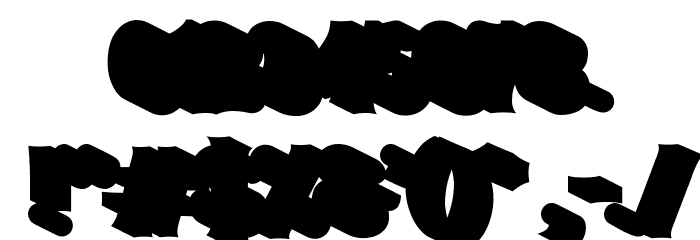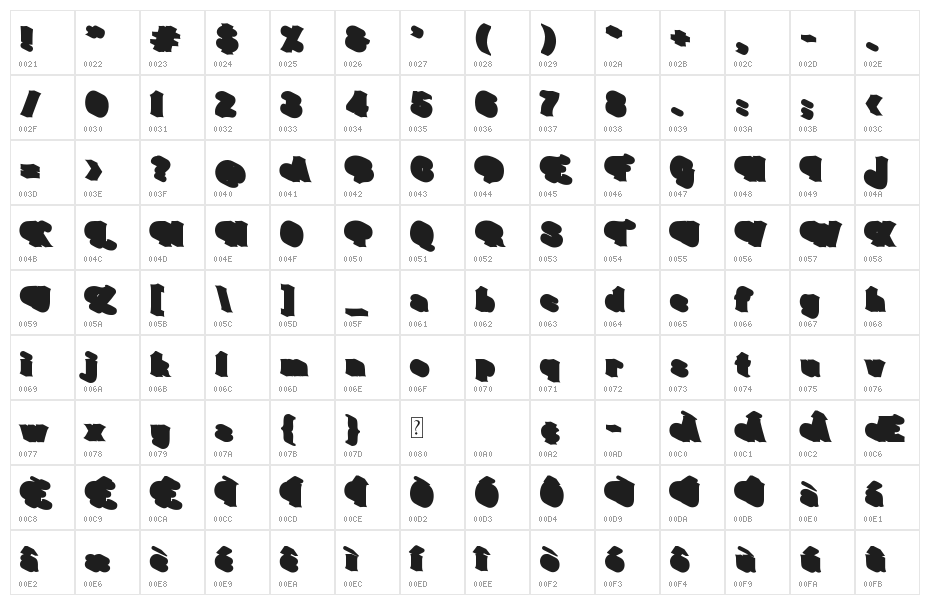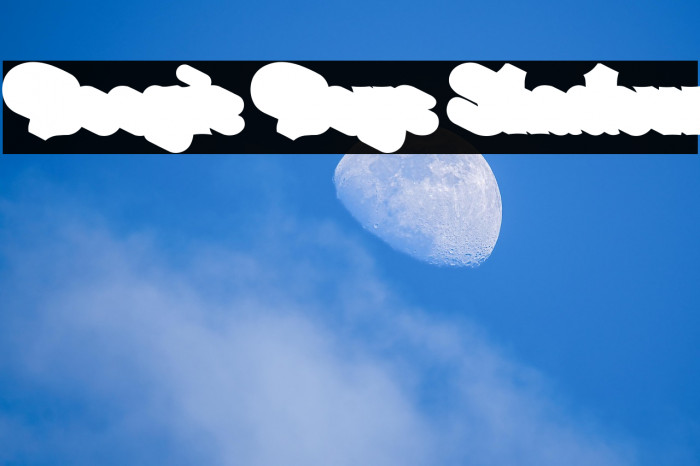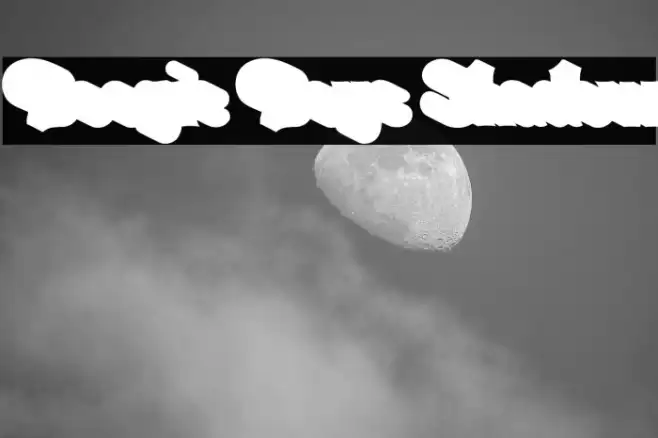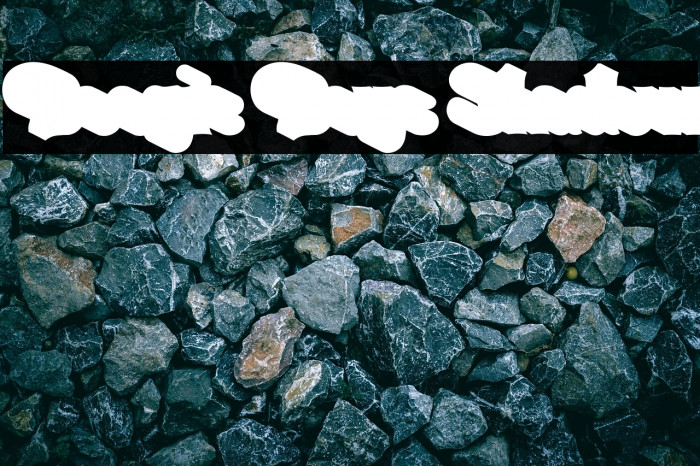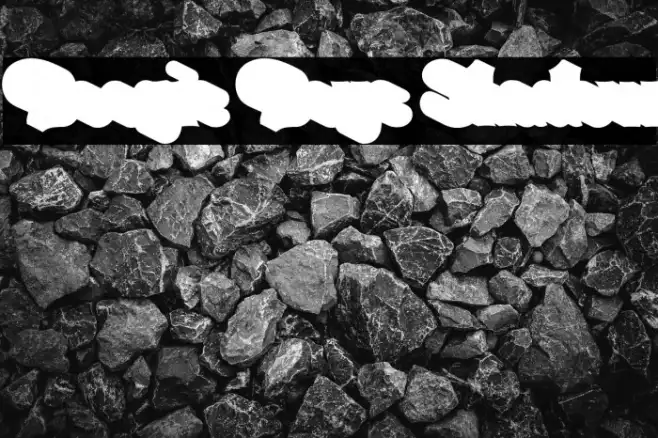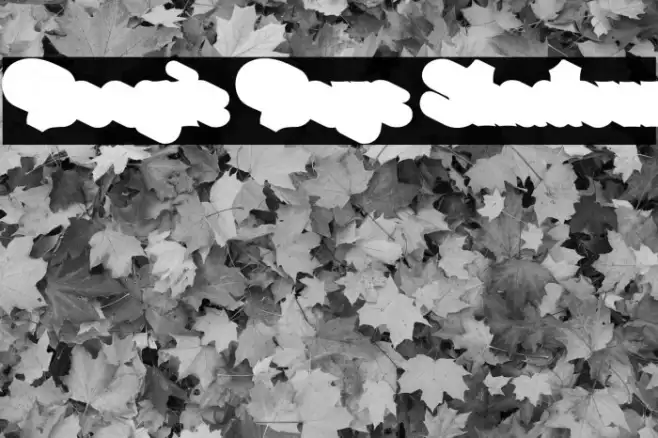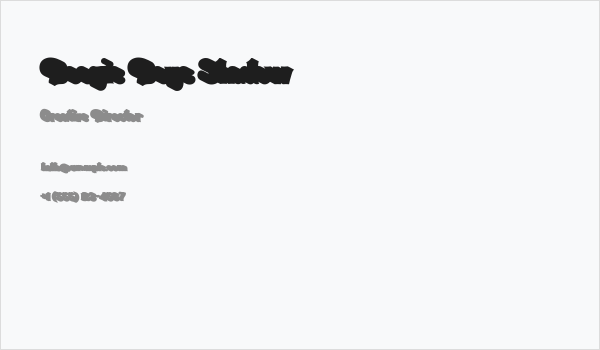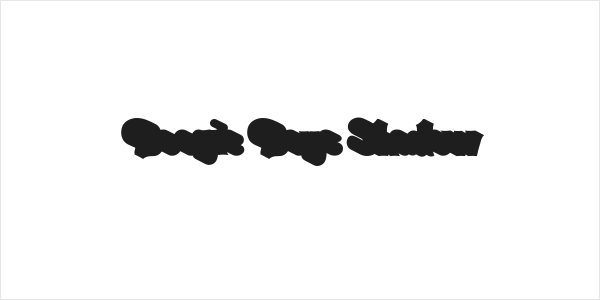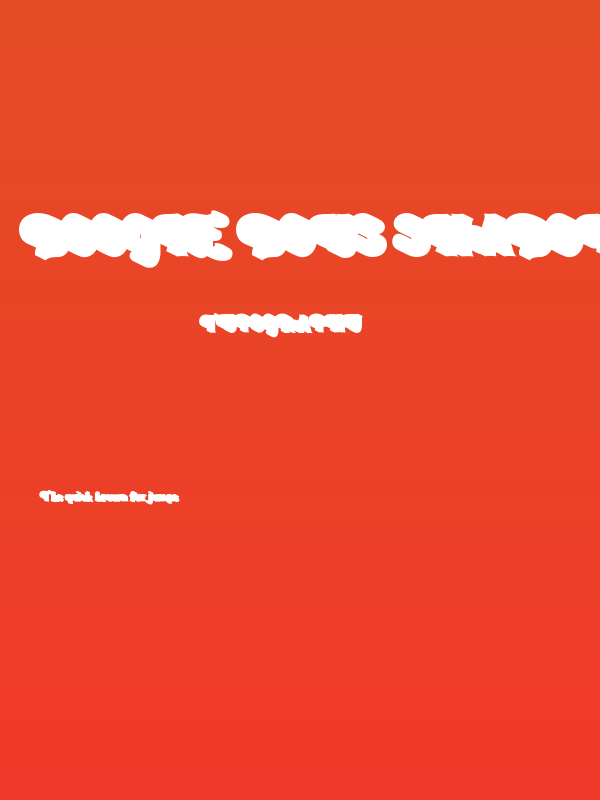
Boogie Boys Shadow Font
Boogie Boys Shadow Description
This font features a bold and playful design with a shadow effect that gives it a three-dimensional appearance. The characters are rounded and thick, creating a sense of fun and energy. The shadow adds depth, making the letters stand out prominently. It's a highly decorative style, suitable for eye-catching designs. The font maintains a consistent weight throughout, with each letter exhibiting a strong presence. The spacing between characters is tight, enhancing the compact and cohesive look. The overall style is modern and whimsical, perfect for projects that require a lively and engaging typeface.
| Overall Style | Modern, Whimsical |
| Proposed Projects | Ideal for posters, children's books, party invitations, and playful branding. |